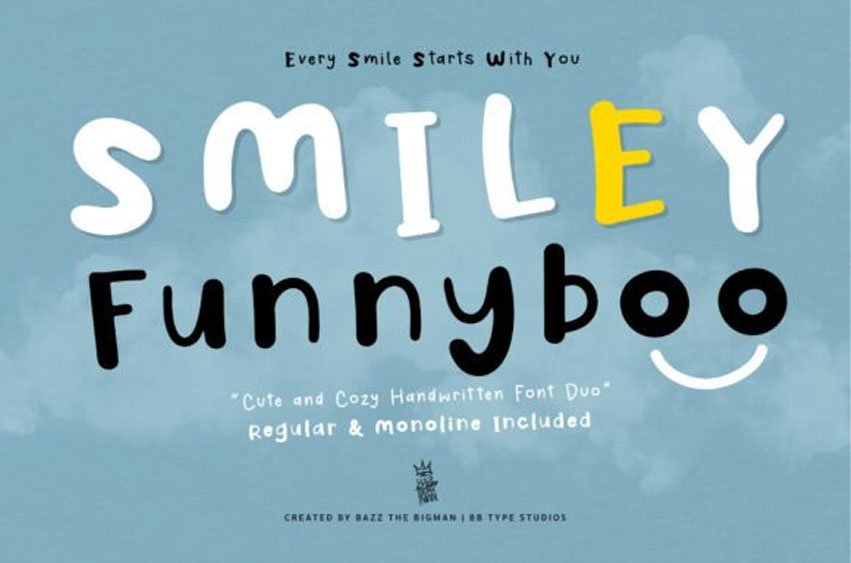
Smiley Funnyboo Font Spread joy with Smiley Funnyboo, the ultimate “cute and cozy” handwritten duo. This collection includes both a Regular (chunky) and Monoline version. With its soft, rounded terminals and the iconic smiley face integrated into the descenders, it’s a font designed to make people smile.
Best Used For: Greeting cards, friendly app interfaces, bakery branding, and “hand-written” marketing notes.